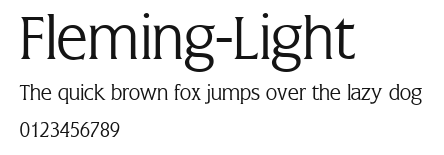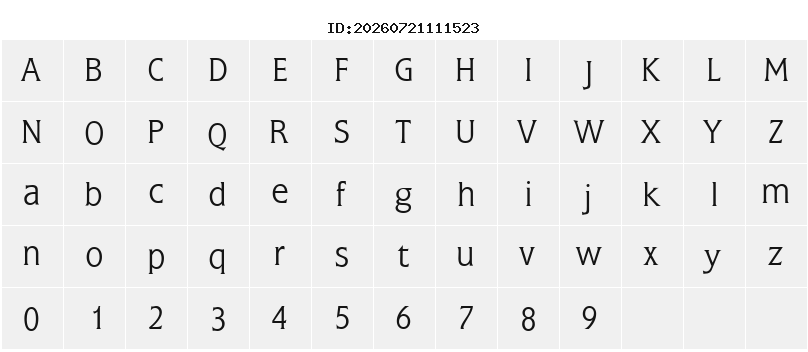
• Font Name: Fleming-Light
• Designer: SoftMaker Software GmbH
Fleming-Light.ttf is a modern, elegant sans-serif font designed for ultimate readability and visual harmony. Perfect for branding, headlines, web design, and print materials.